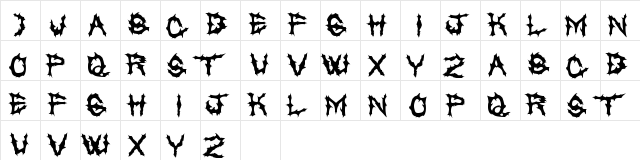
Chased Through The Woods Regular
Design Context for Chased Through The Woods Typeface
Chased Through The Woods echoes the hand-painted signage and woodblock typography of the American frontier, with a warm, rugged personality.
A natural fit for craft spirits, ranch branding, rodeo events, and Americana-inspired design work.
Font Pairing: Combine Chased Through The Woods with a simple slab or neutral sans — period-accurate companions reinforce the vintage feel without competing for attention.
Pro Tip: Use Chased Through The Woods for short, impactful bursts of text — it shines in poster headlines and product names rather than extended copy.